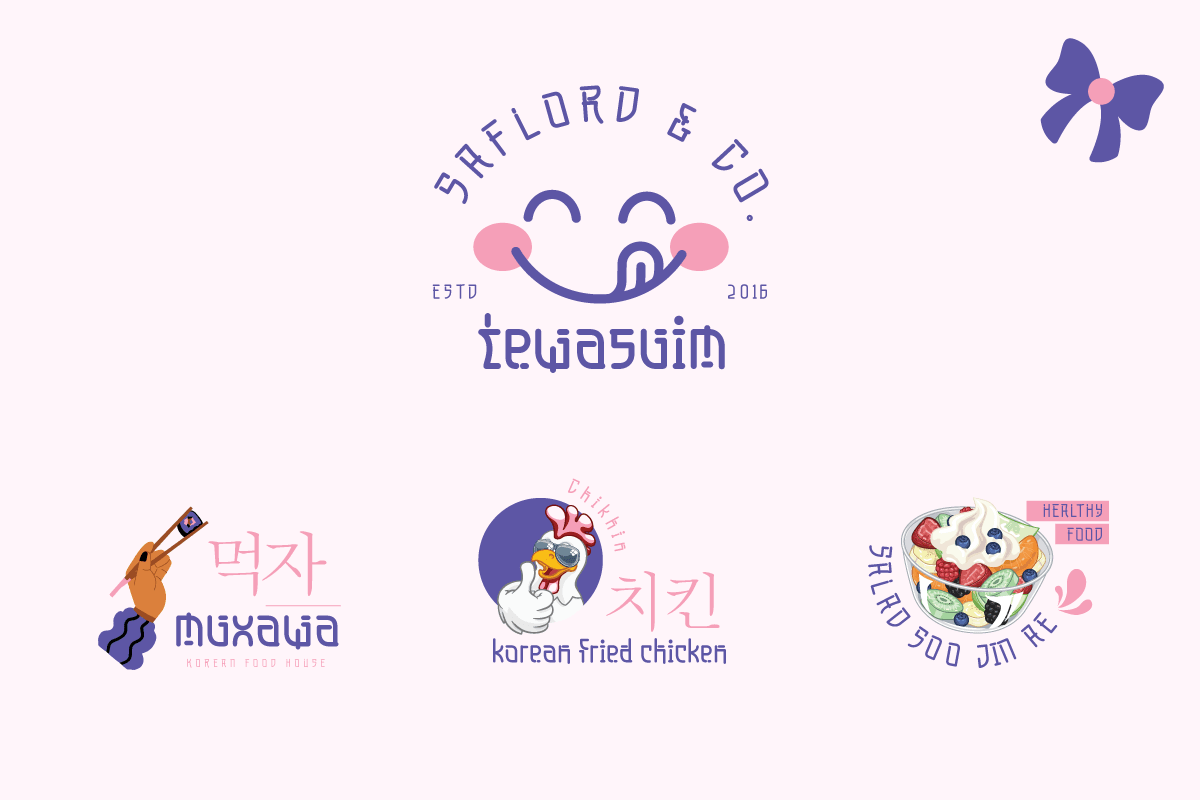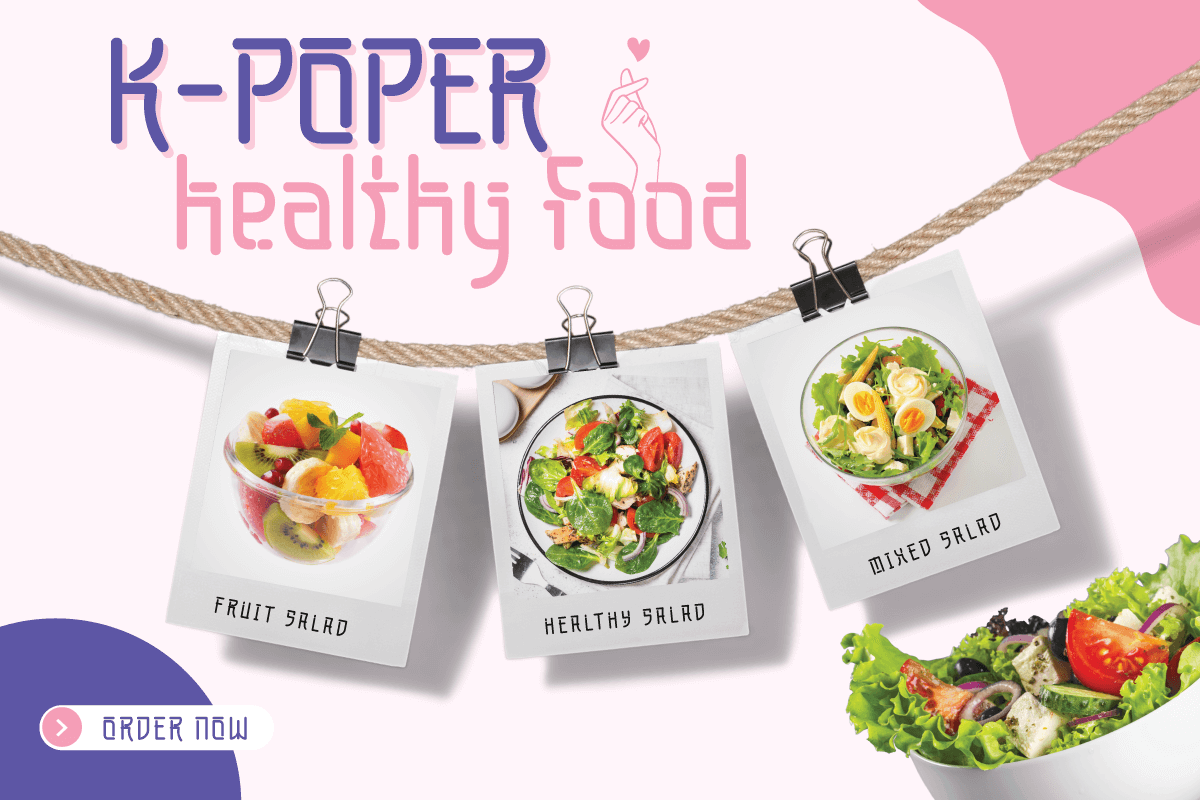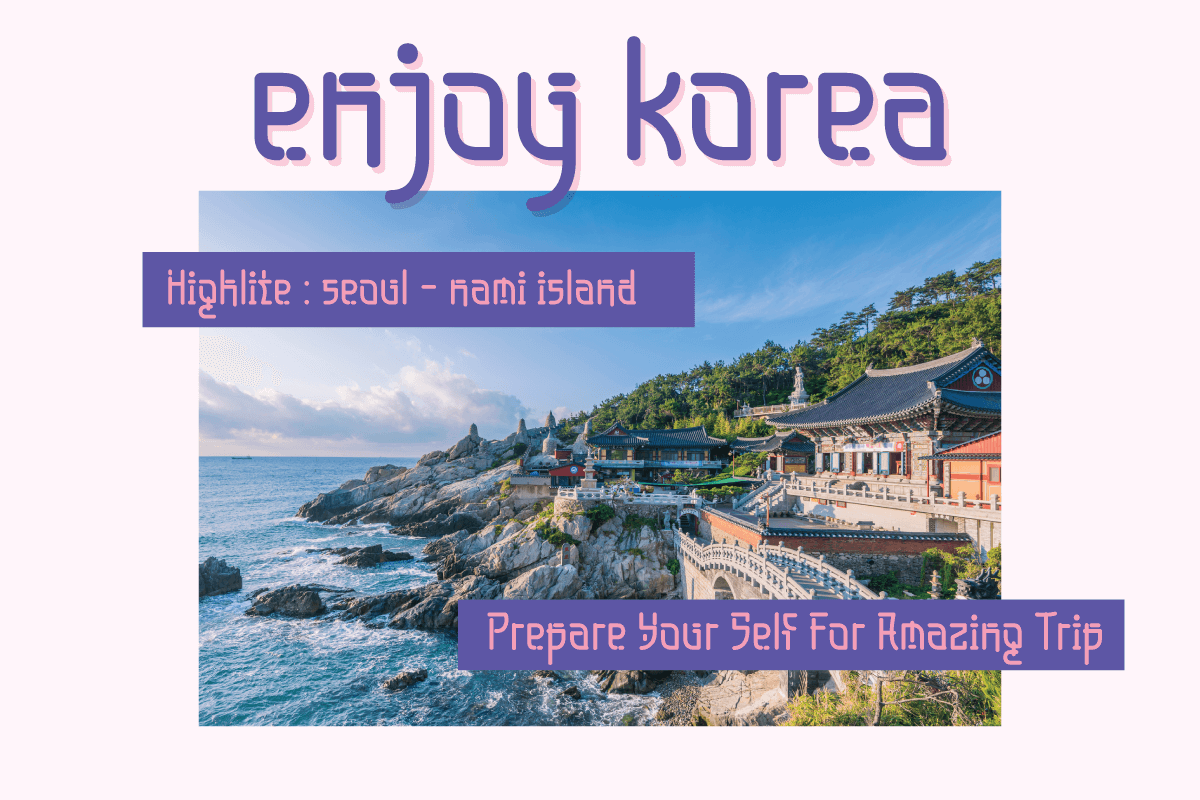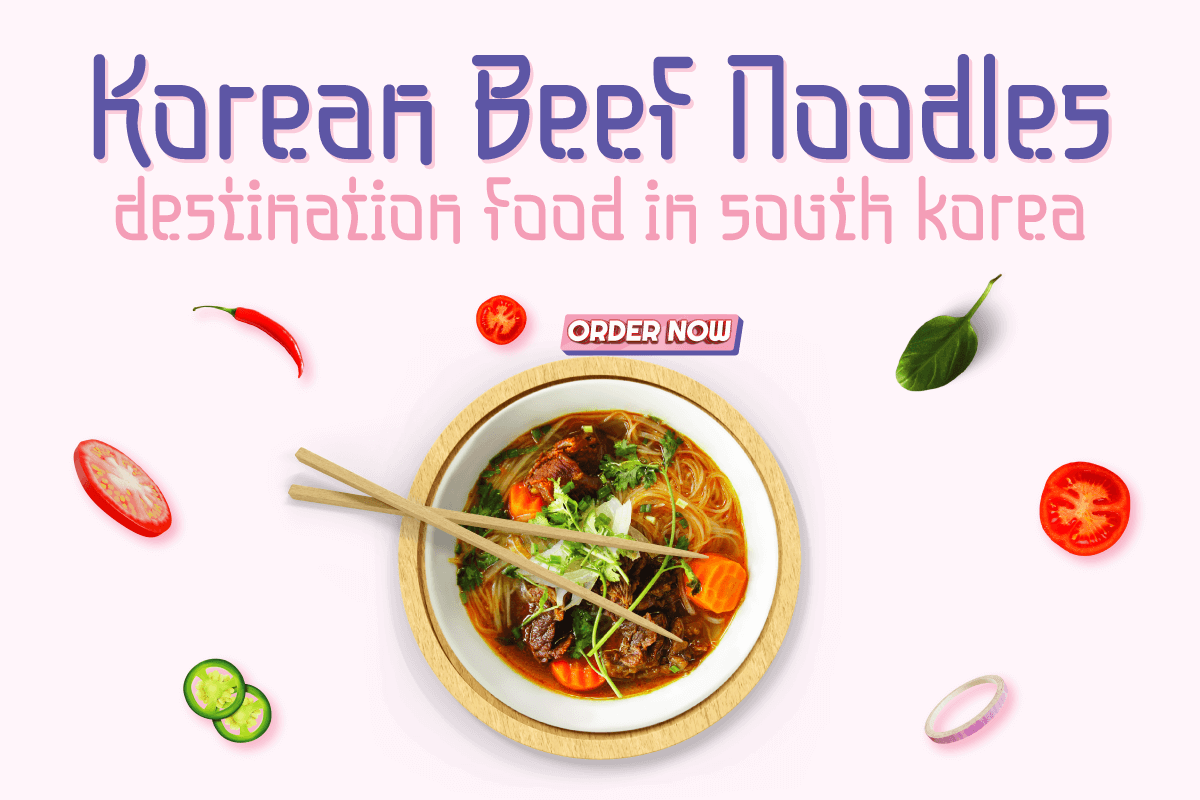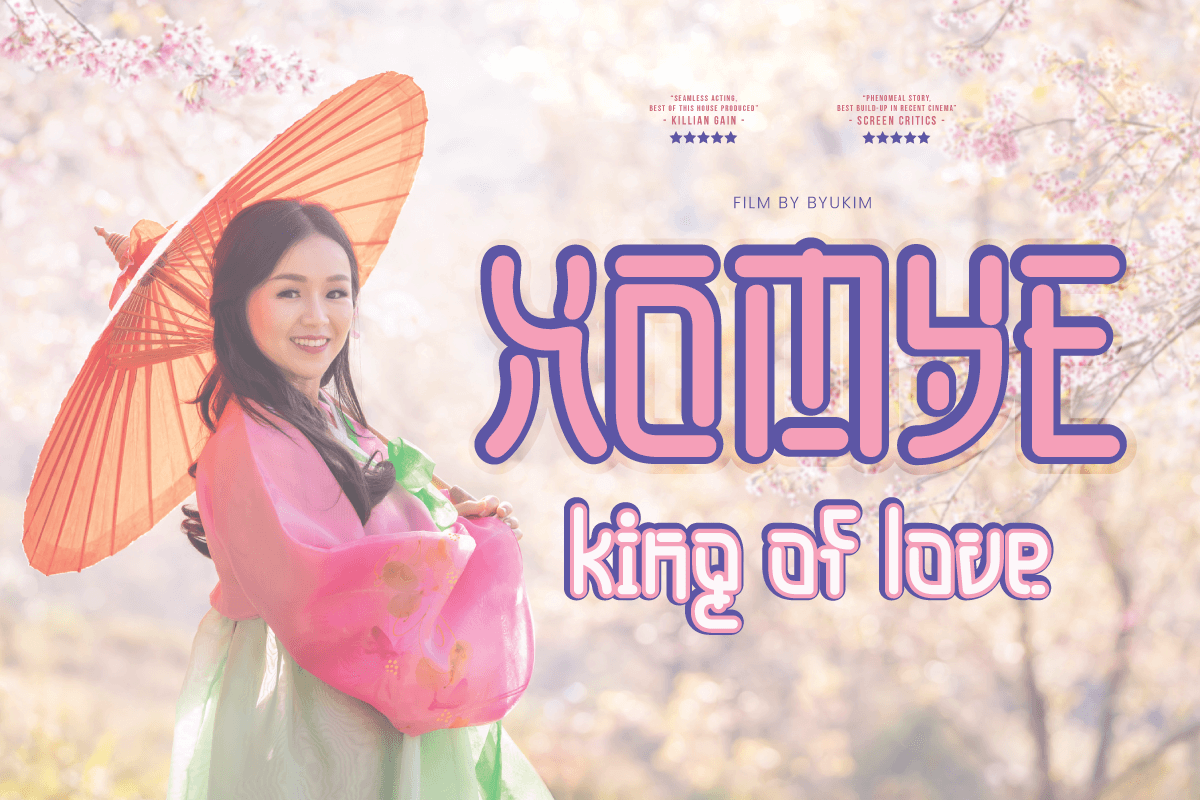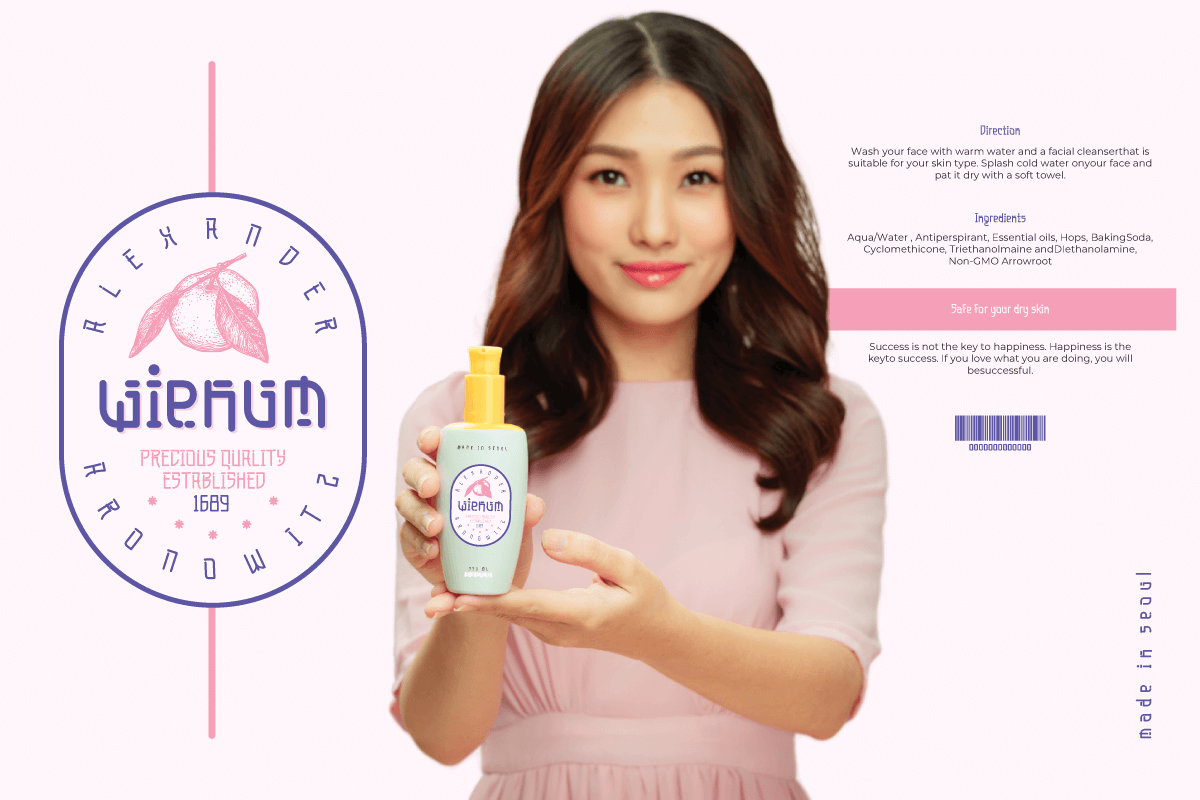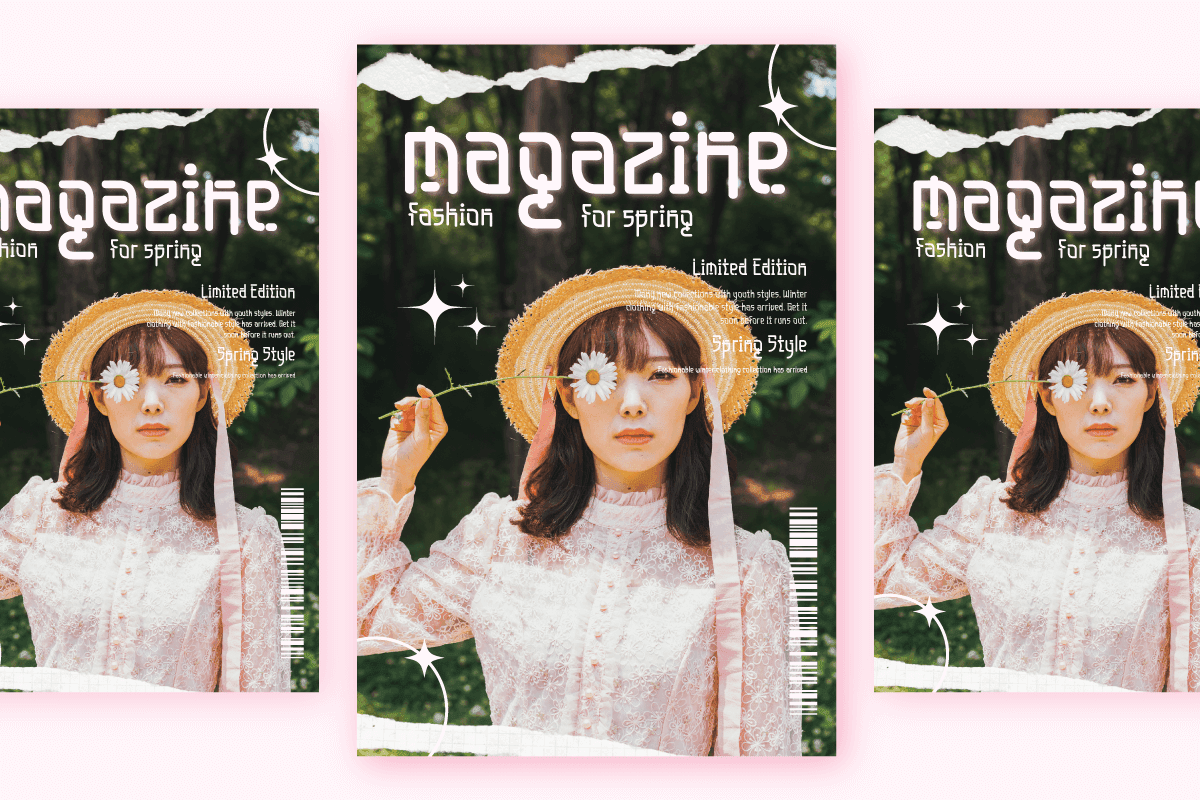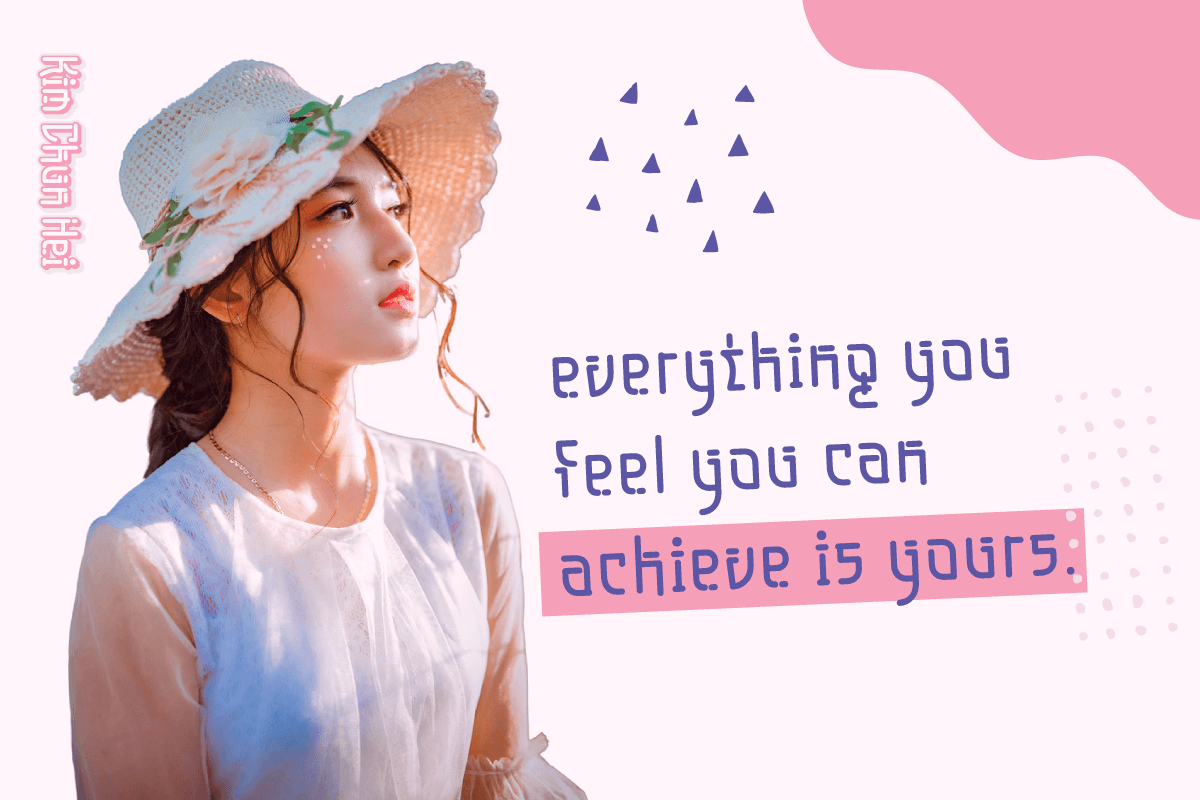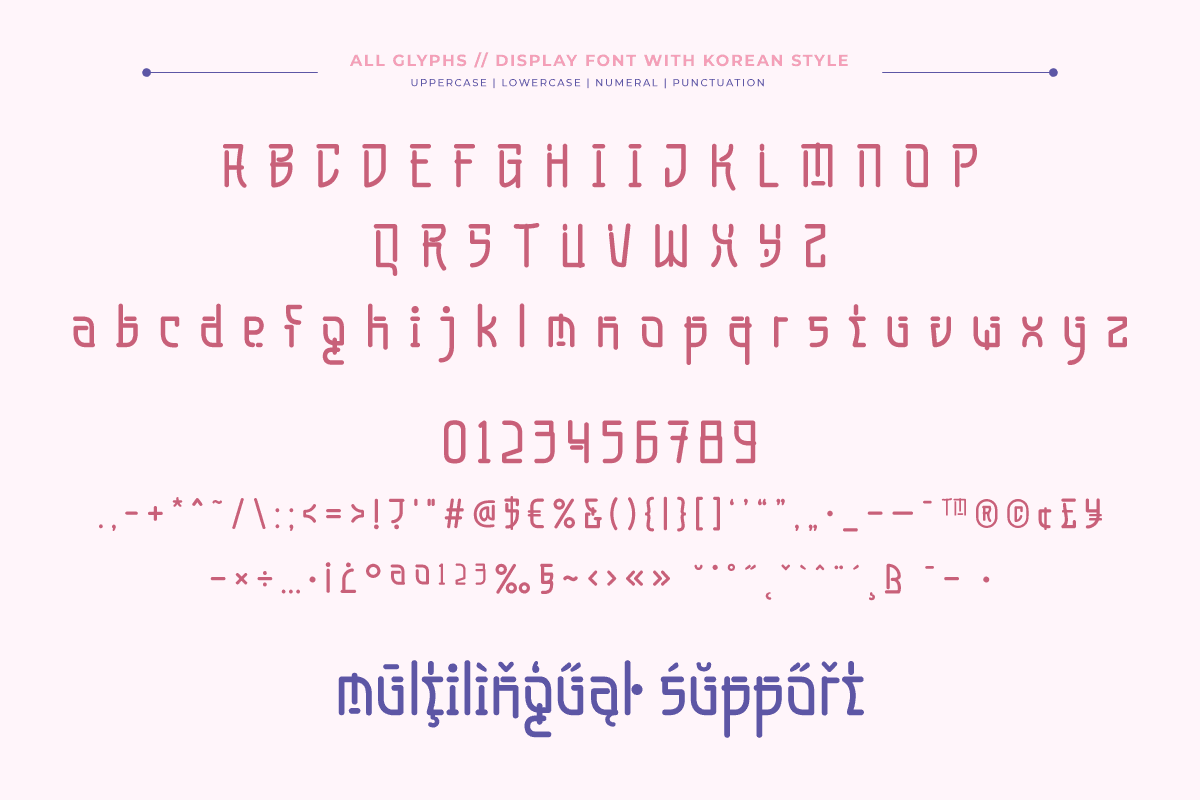
Wefumi – Korean Style Font
Welcome Korean elegance into your designs with Wefumi, a stunning font with a charming Asian twist. Each curve of the letters exudes the charm of Korea’s rich culture, creating an atmosphere flowing with natural beauty.
Wefumi is the ideal choice for branding projects, logo typography, and special events that want to embrace the beauty of Asia. With its elegant and easy-to-understand design, this font brings unique Korean elements to every work.
Let Wefumi be your guide on a journey through Korea’s fascinating culture. With this font, bring a calming and stunning feel to your every design.